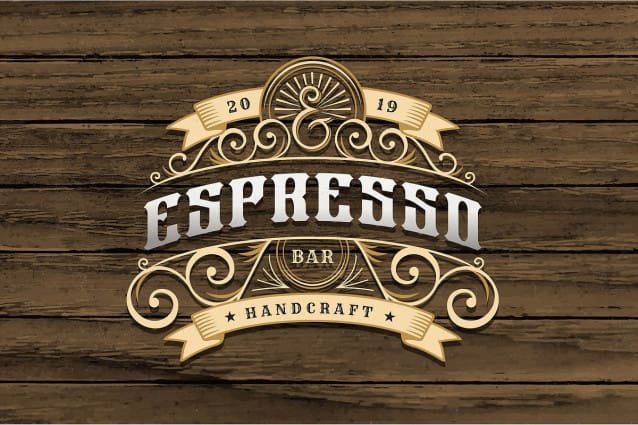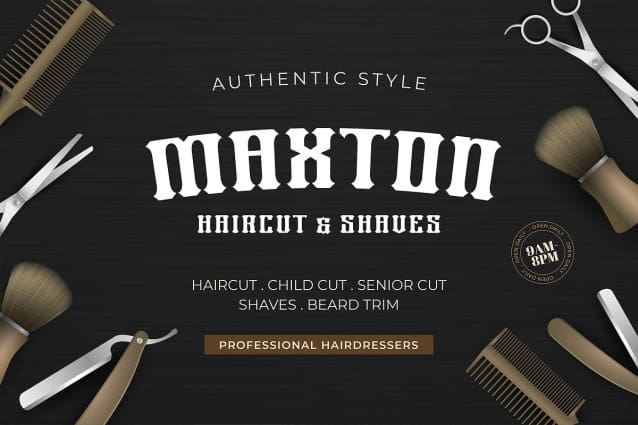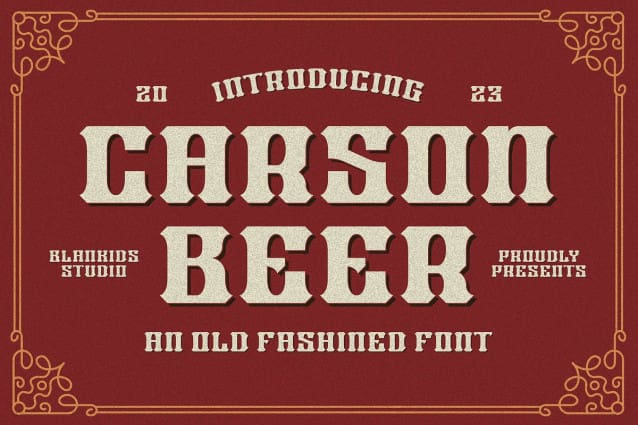
Carson Beer Font
Carson Beer an Old Fashioned Font, Inspiring from old signage typography. This font is perfect for a design that makes it more attractive and playful. made with a very good level of aesthetics making this font suitable for book cover, poster, packging, merchandise, logotype and much more.